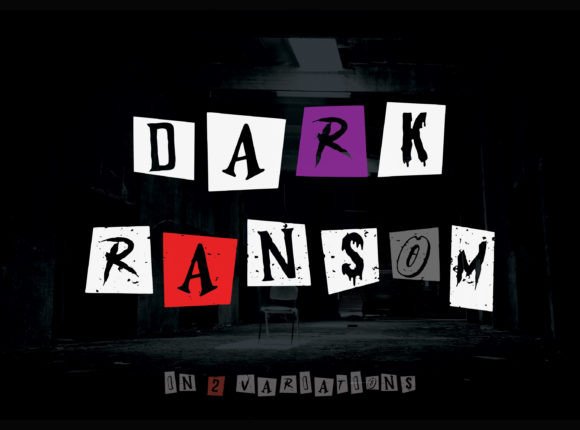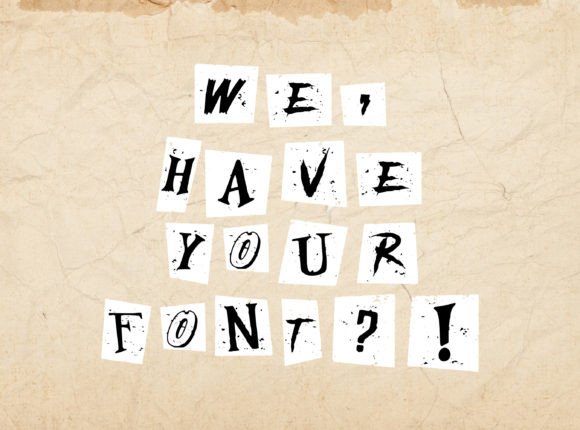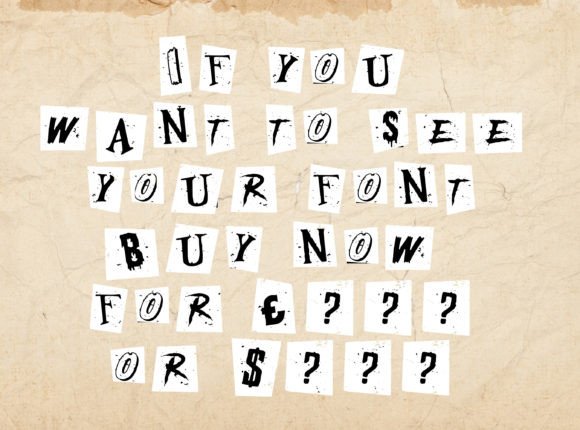
We are excited to introduce Dark Ransom Font, a must-have typeface for any serious designer. This rough Halloween display font is perfect for your spooky titles and headlines. Dark Ransom adds an iconic style to all your artwork. It’s perfect for any graphic design or typography project that requires an eerie mood.
Dark Ransom excels in large-scale applications such as posters, Halloween-themed branding, and packaging design where its dramatic serifs create a strong visual impact. It’s ideal for headlines and short, impactful statements, lending an air of mystery and intrigue. Avoid using it for body text or UI elements; its heavy weight and ornate details are unsuitable for readability in smaller sizes or continuous text.
To complement its gothic character, pair Dark Ransom with a clean sans-serif like Montserrat for a modern contrast, or a classic serif like Garamond for a more traditional feel. A playful script font such as Pacifico could add a touch of whimsy to Halloween projects, while a geometric sans-serif like Futura provides a stark, contemporary counterpoint.
The font’s core personality is bold, dramatic, and slightly menacing; perfect for brands and projects aiming for a spooky, mysterious, or vintage horror aesthetic.